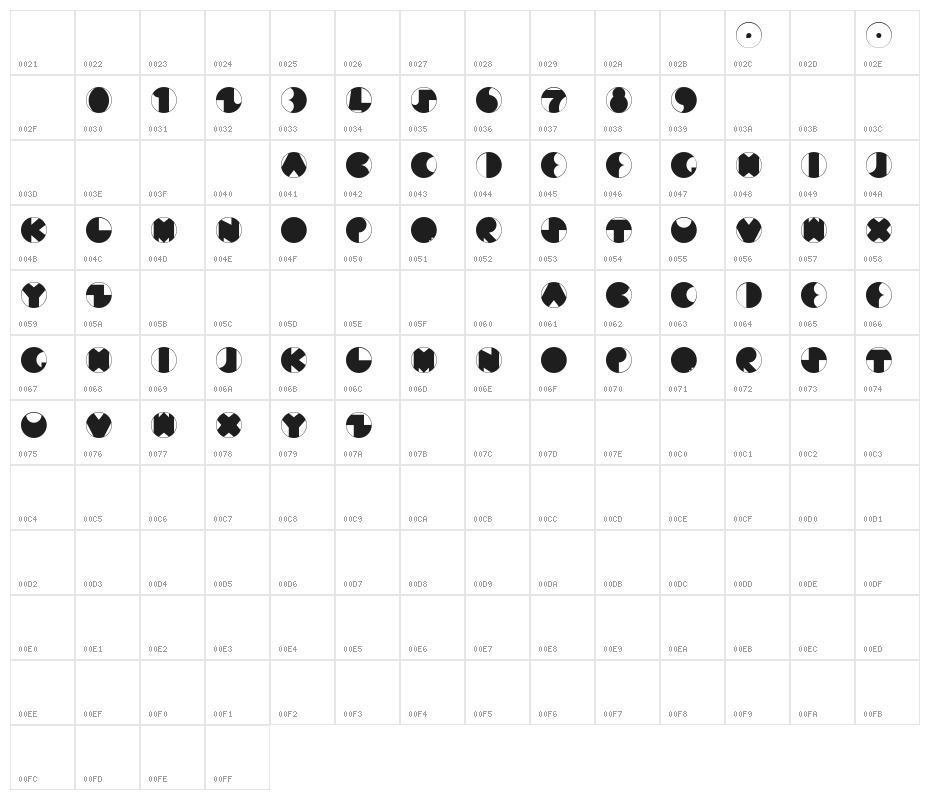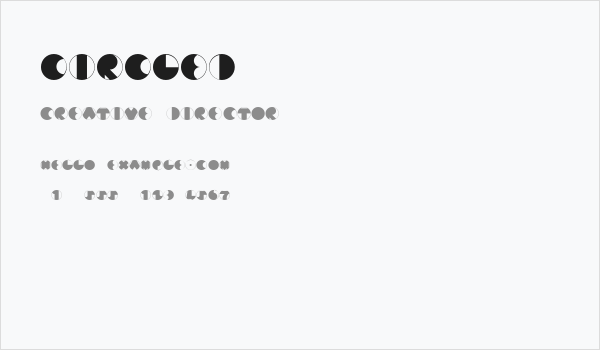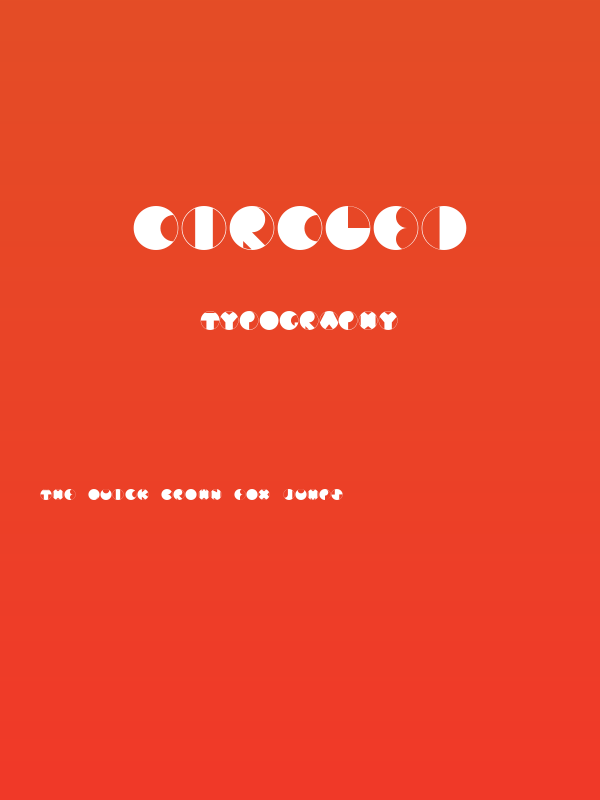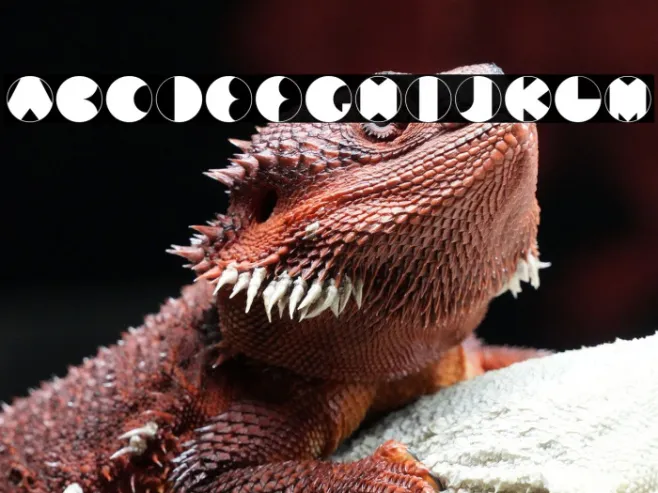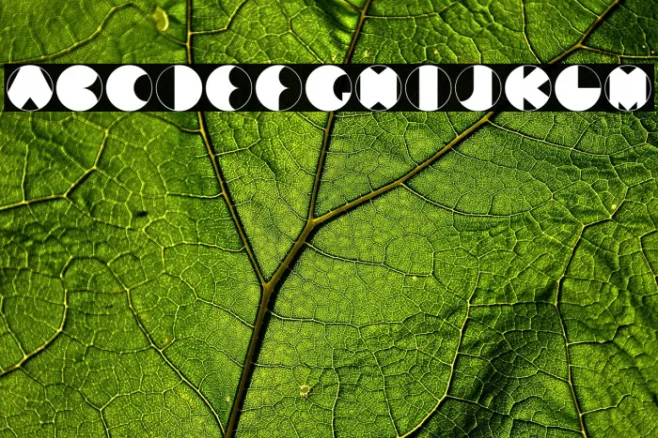
Circled Font
Circled Description
This font features a unique and modern design where each character is encapsulated within a circle, creating a bold and geometric aesthetic. The letters and numbers are crafted with a high contrast between thick and thin strokes, emphasizing their circular containment. The design plays with negative space, offering a visually striking appearance that is both artistic and functional. This font is ideal for projects that require a contemporary and eye-catching look, such as branding, posters, and digital media. Its distinct style makes it stand out, providing a fresh take on traditional typography.
| Proposed Projects | Ideal for branding, posters, digital media, and any project needing a contemporary, eye-catching design. |